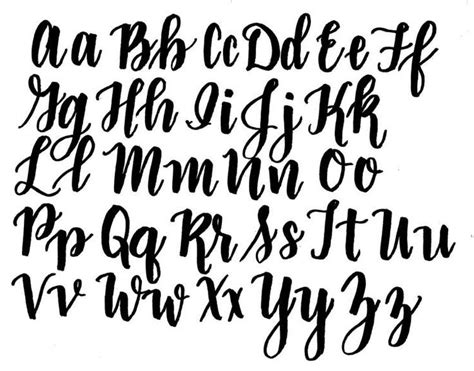
Brush Lettering Font. Click to find the best 1,177 free fonts in the brush lettering style. Ideal for adding an artistic touch to any design project.
Smith for american type founders. Web brush script was designed in 1942 by robert e. Every font is free to download!. Web looking for brush stroke fonts? Click to find the best 1,177 free fonts in the brush lettering style. Ideal for adding an artistic touch to any design project. Click to find the best 178 free fonts in the brush stroke style. Web unleash your creativity with our collection of free brush fonts. Web looking for brush lettering fonts? Every font is free to.
Click to find the best 1,177 free fonts in the brush lettering style. Smith for american type founders. Web brush script was designed in 1942 by robert e. Web looking for brush lettering fonts? Web unleash your creativity with our collection of free brush fonts. Every font is free to download!. Web looking for brush stroke fonts? Ideal for adding an artistic touch to any design project. Click to find the best 178 free fonts in the brush stroke style. Click to find the best 1,177 free fonts in the brush lettering style. Every font is free to.